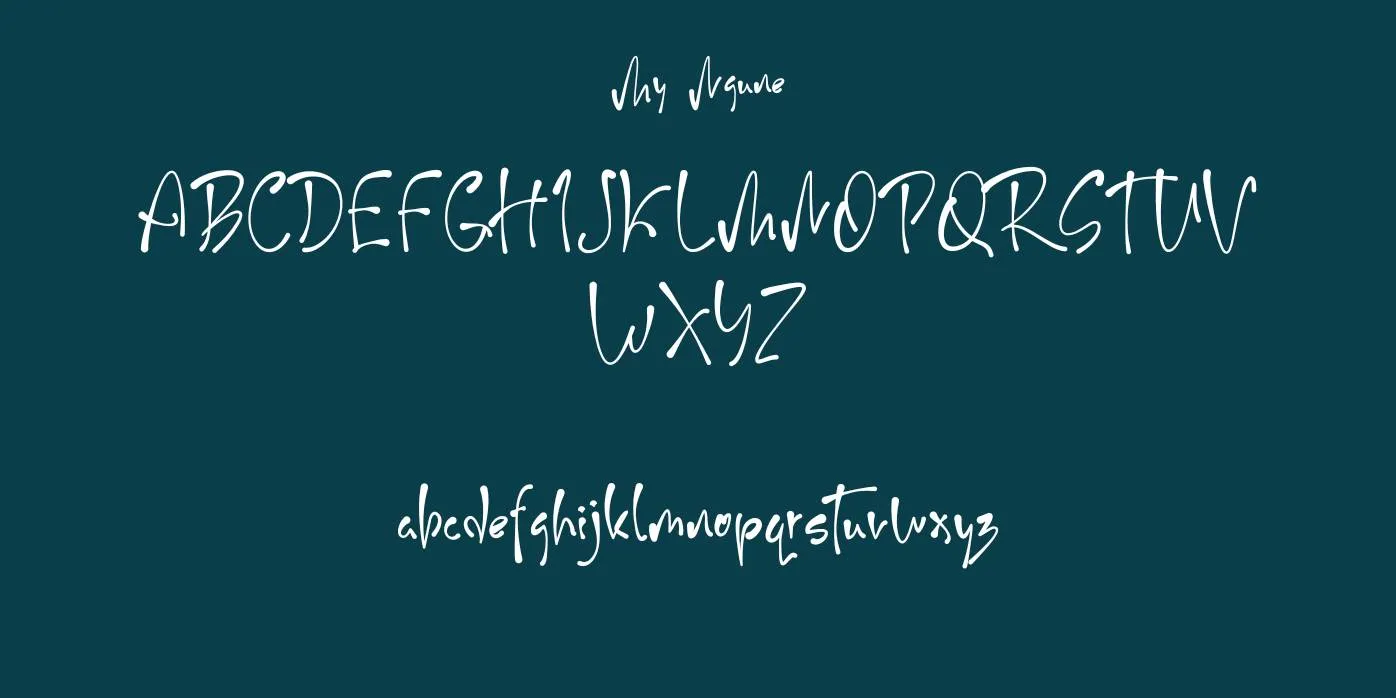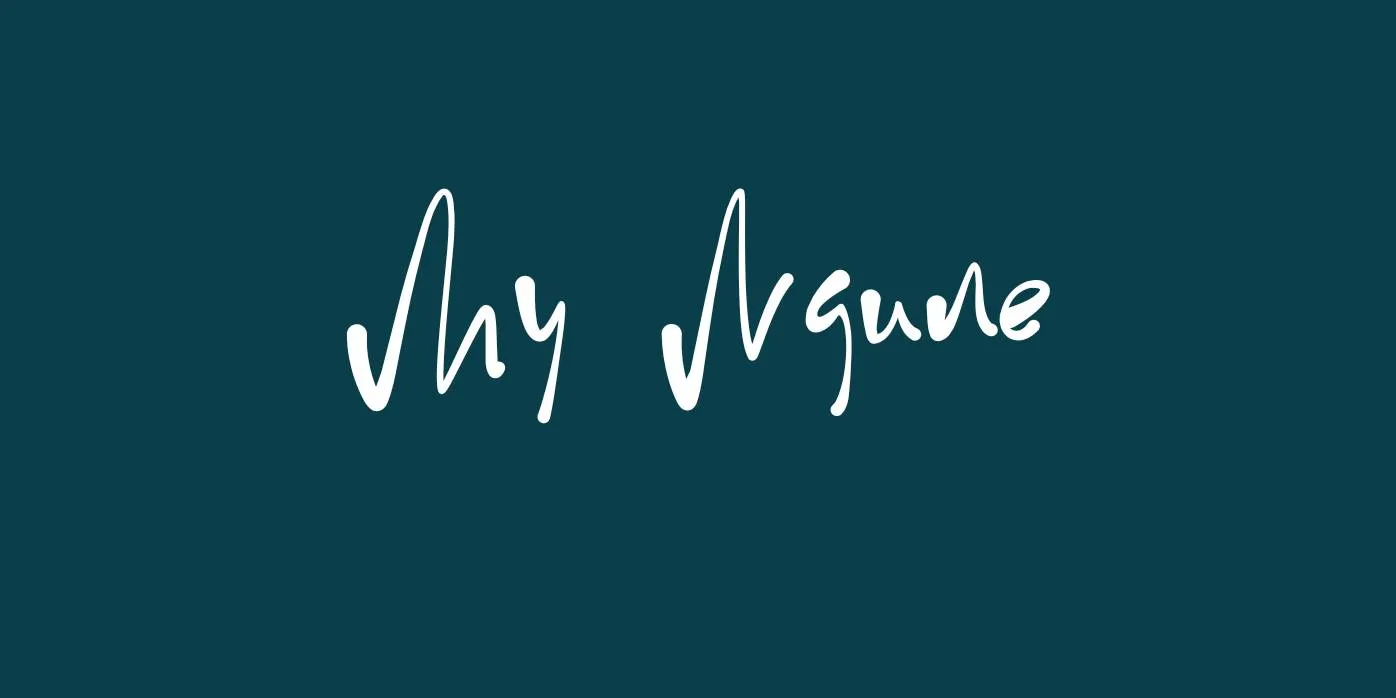
My Ngune Font
My Ngune Font was designed by a famous typographic designer named Twin Rizki. It comes in two types of file formats like True Type Format and Open Type Format. This is a script typeface design that give a natural look to your design. It supports 241 characters, and 203 glyphs that are comprised of uppercase, lowercase, punctuations, numerals, swashes, alternates, and some special chaarcters.